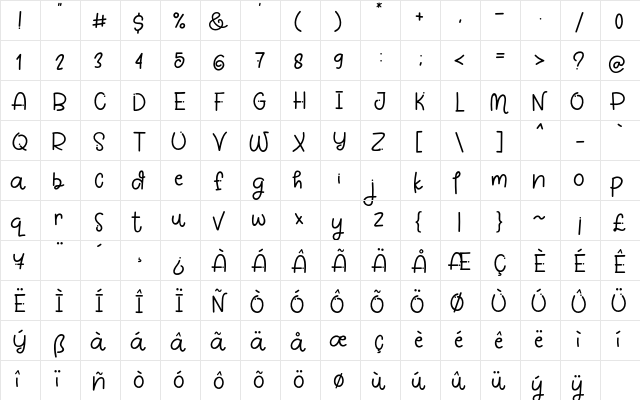
White Pinky Regular
| Foundry | Khurasan |
| Designer | Khurasan |
Design Context for White Pinky Typeface
White Pinky is a composed and adaptable typeface that performs quietly and consistently across a wide range of design contexts.